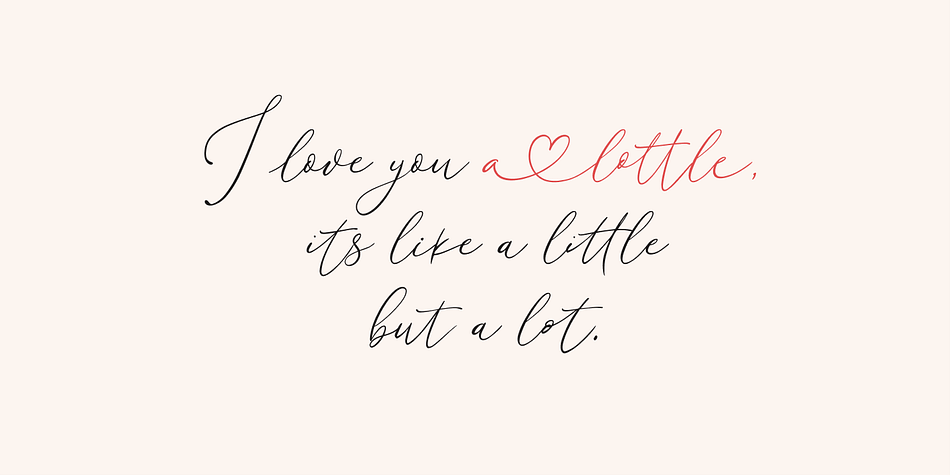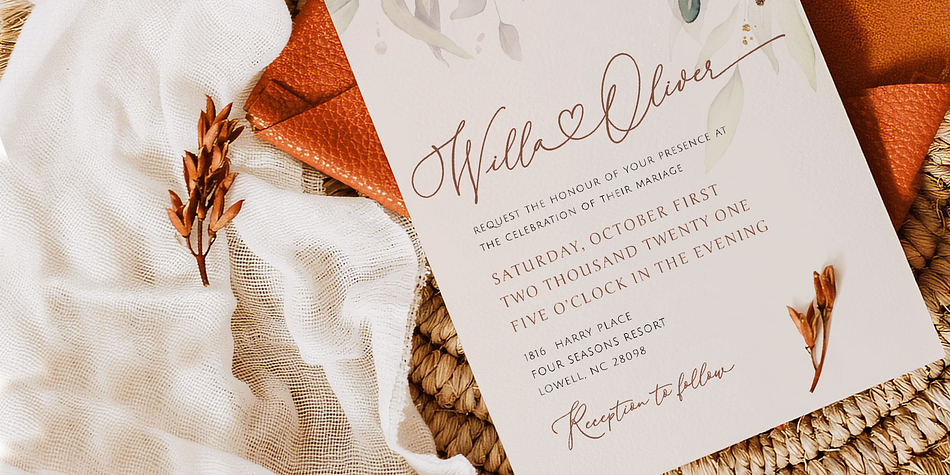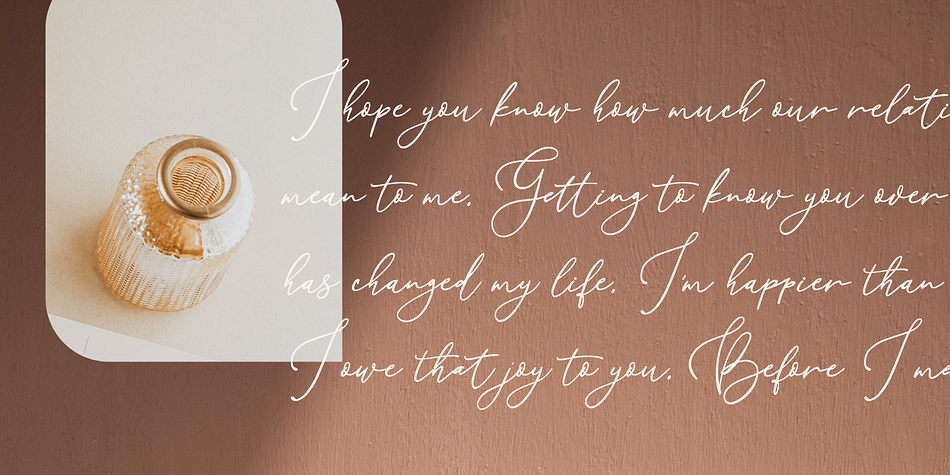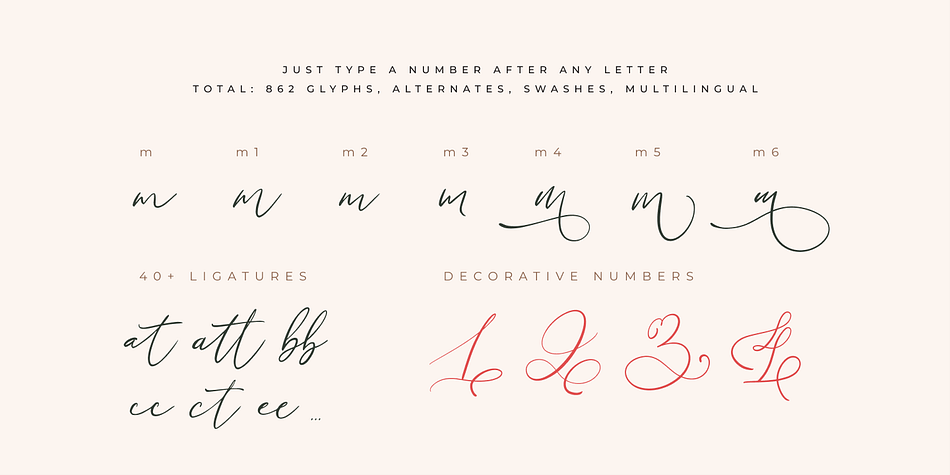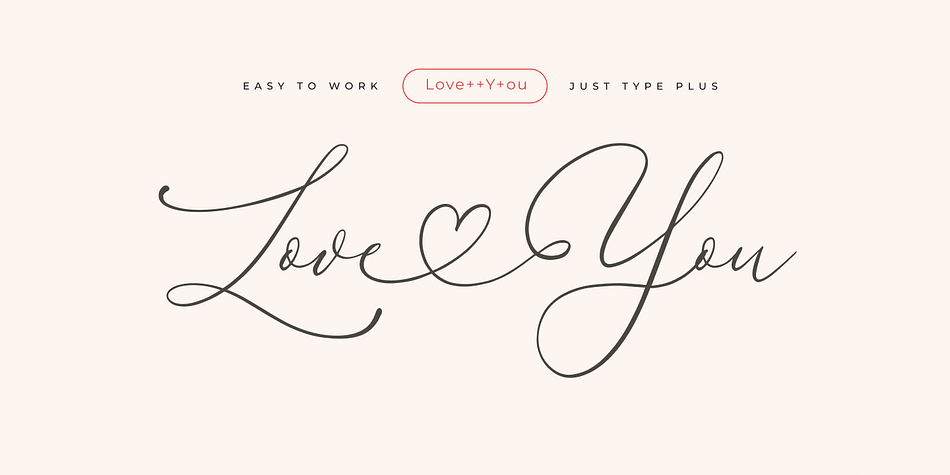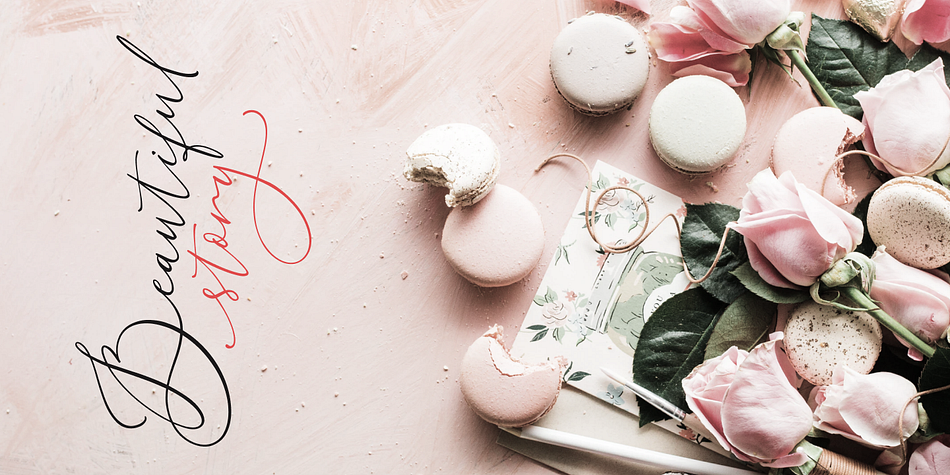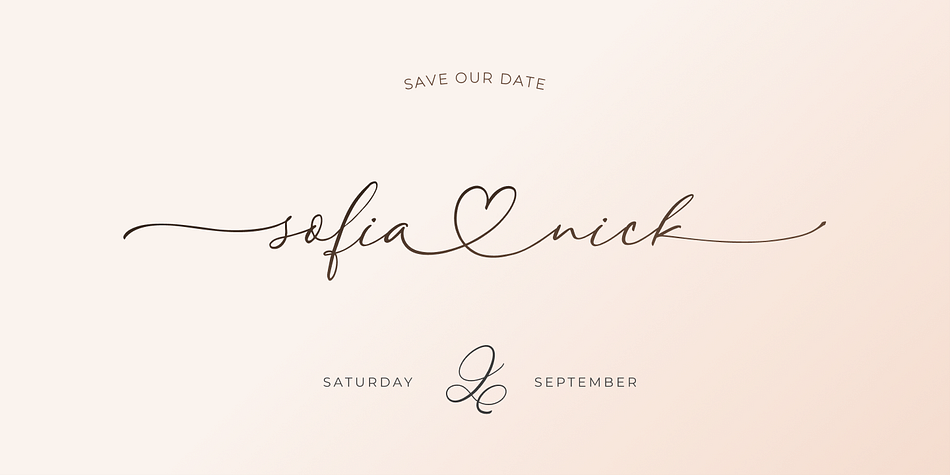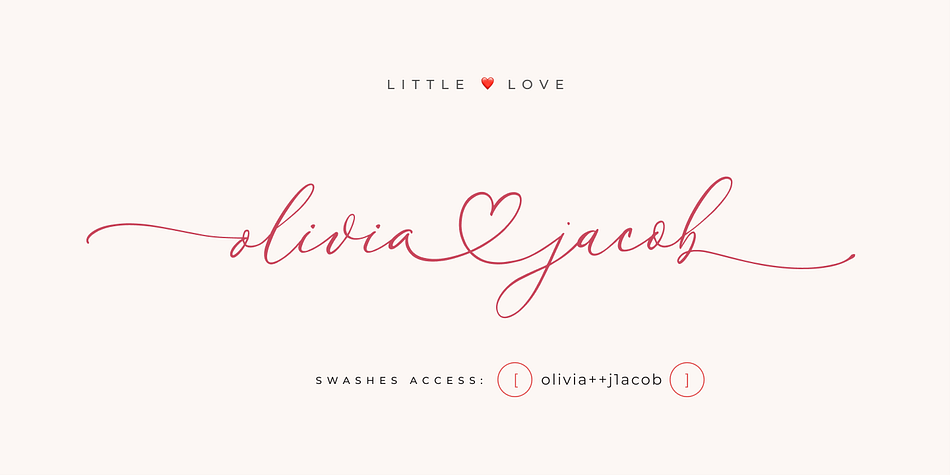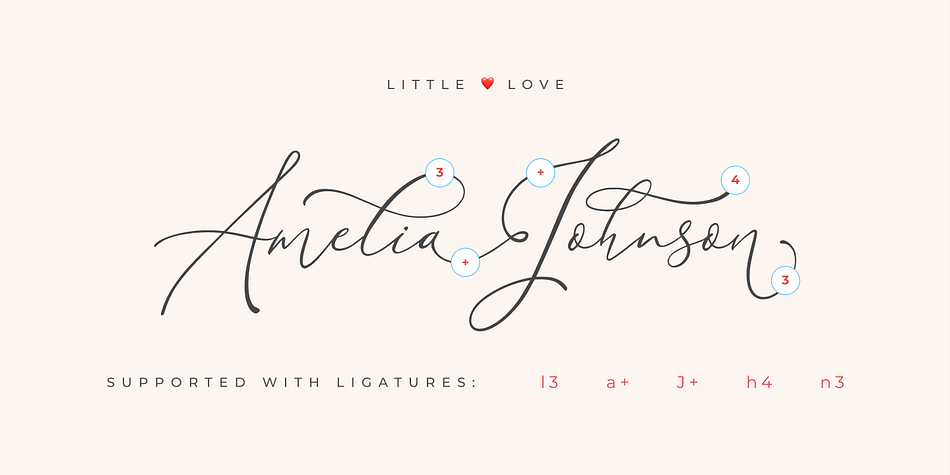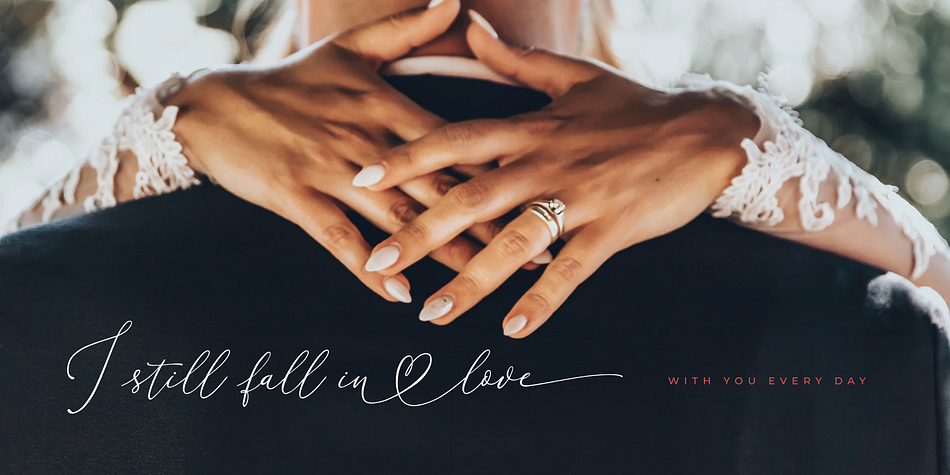
Designed by Dmitrii Mikitenko, Little Love is a modern calligraphy and script font family. This typeface has two styles and was published by Blessed Prints.
Introducing modern calligraphy font with lots of hearts inside: Little Love. This lovely script is dedicated to Valentine Day and all lovers.
– 862 glyphs with PUA encoded
– tones of hearts, swashes and alternates
– try to add PLUS (+) after any letter. No matter lowercase or uppercase
– try to add numbers after lowercase letters
– add [ for income swash and ] for outcome swash
– if you need more swashes, just type [[ or [[[ before lowercase letter